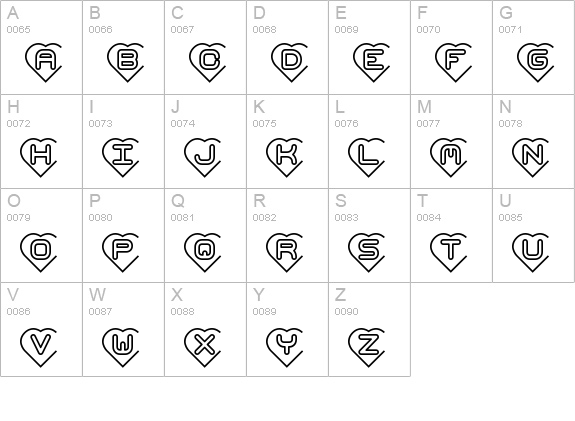
Hearts BRK is a beautifully designed font that exudes elegance and charm. With its intricate heart-shaped details and delicate curves, this font adds a touch of romance to any project. Whether you're creating a wedding invitation, crafting a heartfelt message, or designing a logo for a love-themed business, Hearts BRK is the perfect choice. What makes Hearts BRK even more appealing is that it is completely free! That's right, you can download this stunning font without spending a dime. Simply head over to FontsMarket.com, and you'll find Hearts BRK among their extensive collection of fonts. It's a true gem among the fonts available, and the fact that it's freely available makes it even more valuable. Not only does Hearts BRK offer visual appeal, but it also delivers on functionality. Its clean and legible letterforms ensure that your text is effortlessly readable, whether it's in large headlines or small body copy. The font's versatility allows it to be used across various design projects, from digital to print. So why wait? Enhance your designs with the captivating allure of Hearts BRK. Download this free font today at FontsMarket.com and let your creativity flourish. Whether you're a professional designer or a hobbyist, Hearts BRK will surely become an essential tool in your font arsenal.